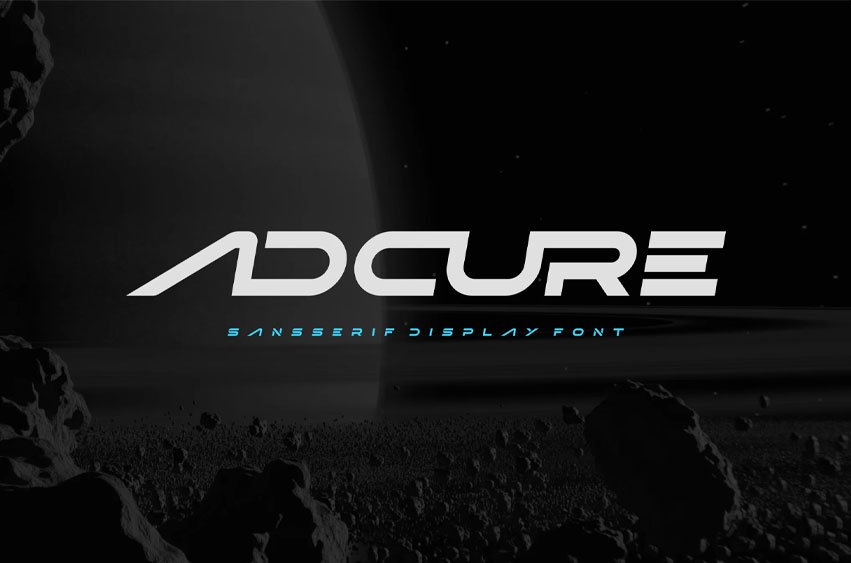
Adcure Font Modern Font is a bold and authentic display font. The font is suitable for any branding project, like logos, esport, and many more.
outstanding in a wide range of contexts.